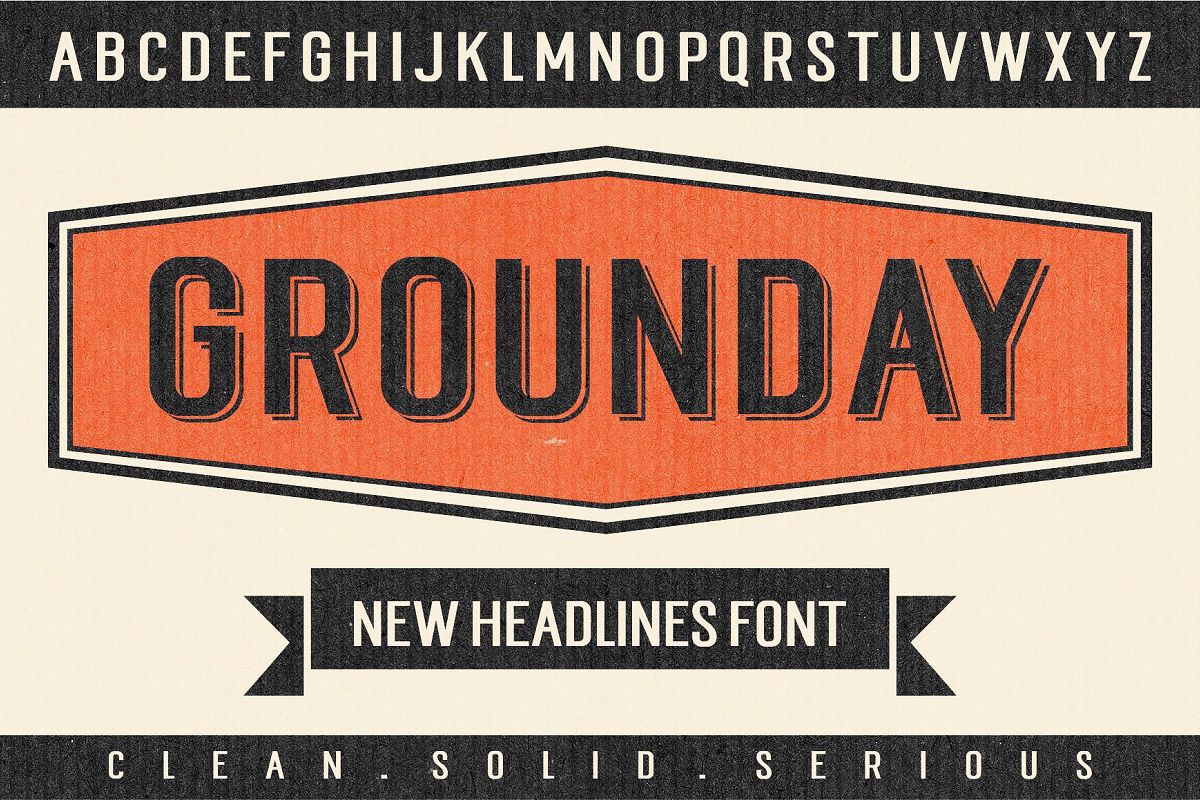
Grounday
Grounday is highly legible sans typeface, a bold compressed sans typeface, in uppercase characters only, Applies to headlines and branding. The solid version is accessed by typing with the uppercase keys, while the alternative shadowed version is accessed with the lowercase. Thank You!